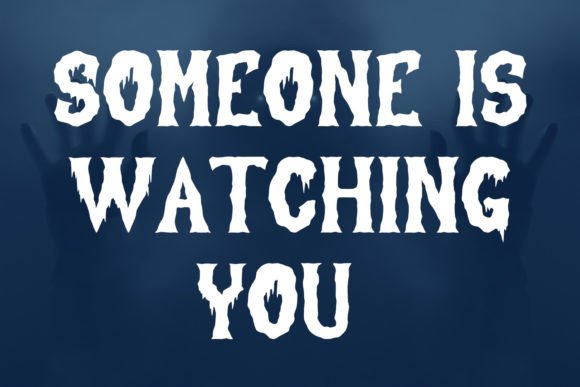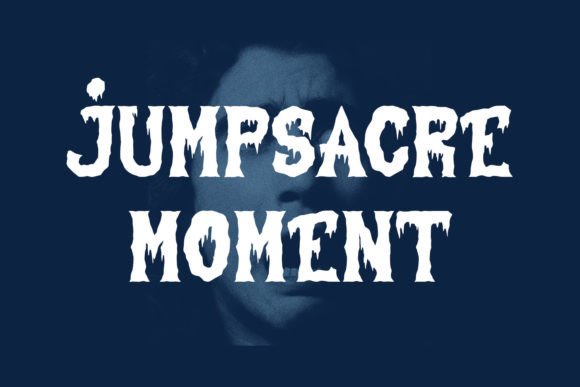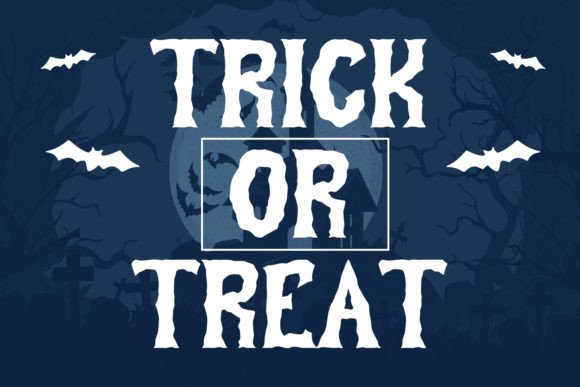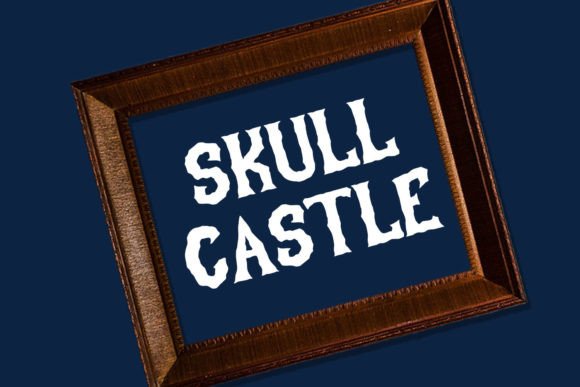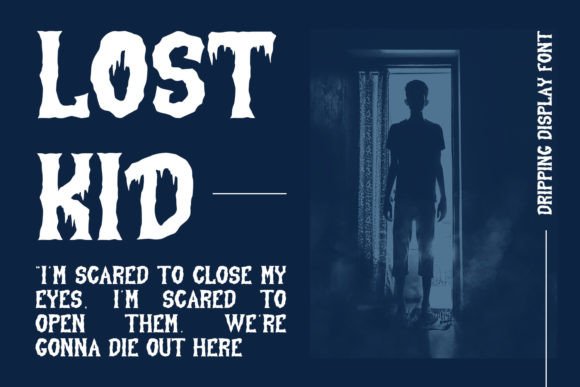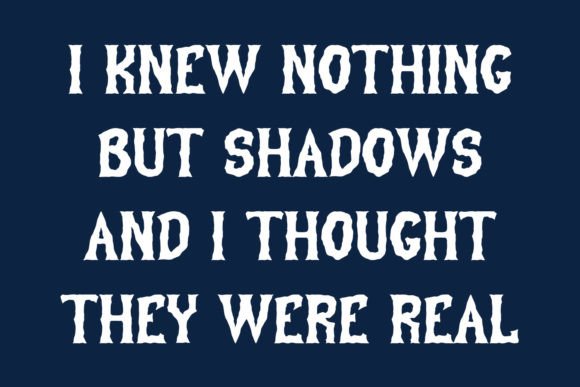
Introducing Freezink Font: The Ultimate Urban Display Font
Are you looking for a font that can add a touch of edginess and urban style to your designs? Look no further than Freezink Font, a bold and contemporary display font that’s perfect for fashion, music, and sports projects. In this article, we’ll dive into the unique features of Freezink Font and explore how it can elevate your branding, logos, and creative projects.
The Unique Design of Freezink Font
Freezink Font is a cool and edgy display font that boasts sharp lines and jagged edges, giving it a bold and distinctive look. The font’s unique design makes it stand out from other fonts, making it ideal for projects that require a strong and eye-catching visual identity. Whether you’re designing a logo, brochure, or social media post, Freezink Font is sure to grab attention and leave a lasting impression.
Perfect for Fashion, Music, and Sports Projects
Freezink Font is particularly well-suited for fashion, music, and sports projects, where a bold and edgy aesthetic is often desired. The font’s urban style and attitude make it a perfect fit for brands that want to convey a sense of coolness and sophistication. Whether you’re designing a fashion brand’s logo, a music festival’s poster, or a sports team’s jersey, Freezink Font is sure to bring a touch of excitement and energy to your design.
Key Features of Freezink Font
- Bold and Edgy Design: Freezink Font features sharp lines and jagged edges, giving it a bold and distinctive look.
- Urban Style and Attitude: The font’s unique design exudes a sense of urban style and attitude, making it perfect for fashion, music, and sports projects.
- Highly Versatile: Freezink Font can be used for a wide range of projects, from branding and logos to posters and social media posts.
- Easy to Read: Despite its bold and edgy design, Freezink Font is surprisingly easy to read, making it perfect for headlines and titles.
How to Use Freezink Font in Your Designs
Using Freezink Font in your designs is easy. Here are a few tips to get you started:
- Use it as a Headline Font: Freezink Font is perfect for headlines and titles, where its bold and edgy design can really shine.
- Pair it with Other Fonts: Freezink Font can be paired with other fonts to create a unique and interesting contrast. Try pairing it with a clean sans-serif font for a bold and modern look.
- Experiment with Colors: Freezink Font looks great in bold and bright colors. Experiment with different colors to find the one that works best for your design.
Benefits of Using Freezink Font
There are many benefits to using Freezink Font in your designs. Here are a few:
- Adds a Touch of Edginess: Freezink Font can add a touch of edginess and urban style to your designs, making them stand out from the crowd.
- Highly Versatile: Freezink Font can be used for a wide range of projects, from branding and logos to posters and social media posts.
- Easy to Read: Despite its bold and edgy design, Freezink Font is surprisingly easy to read, making it perfect for headlines and titles.
In conclusion, Freezink Font is a cool and edgy display font that’s perfect for fashion, music, and sports projects. Its unique design makes it ideal for branding, logos, and other creative projects that require a strong and distinctive visual identity. With its bold and edgy design, urban style and attitude, and high versatility, Freezink Font is a must-have font for any designer or craftsperson looking to add a touch of excitement and energy to their designs.